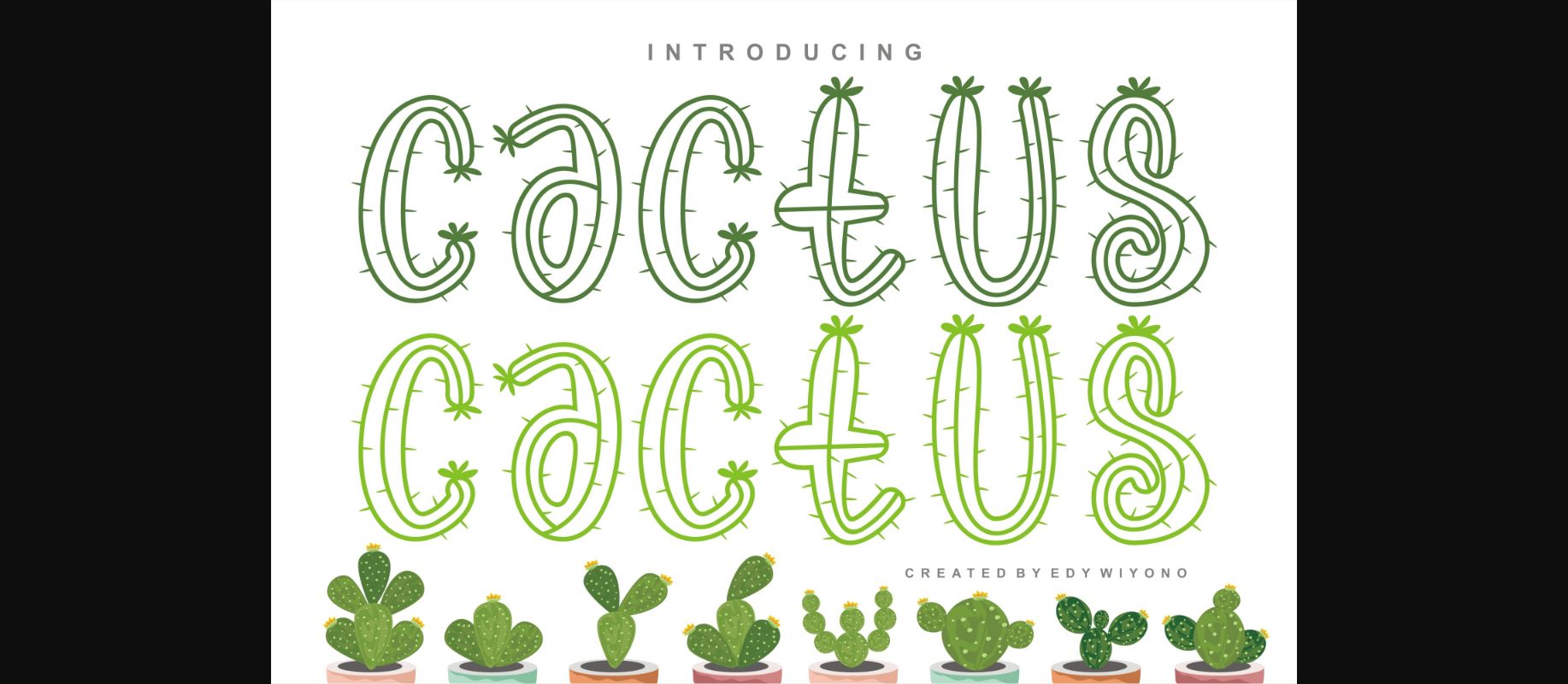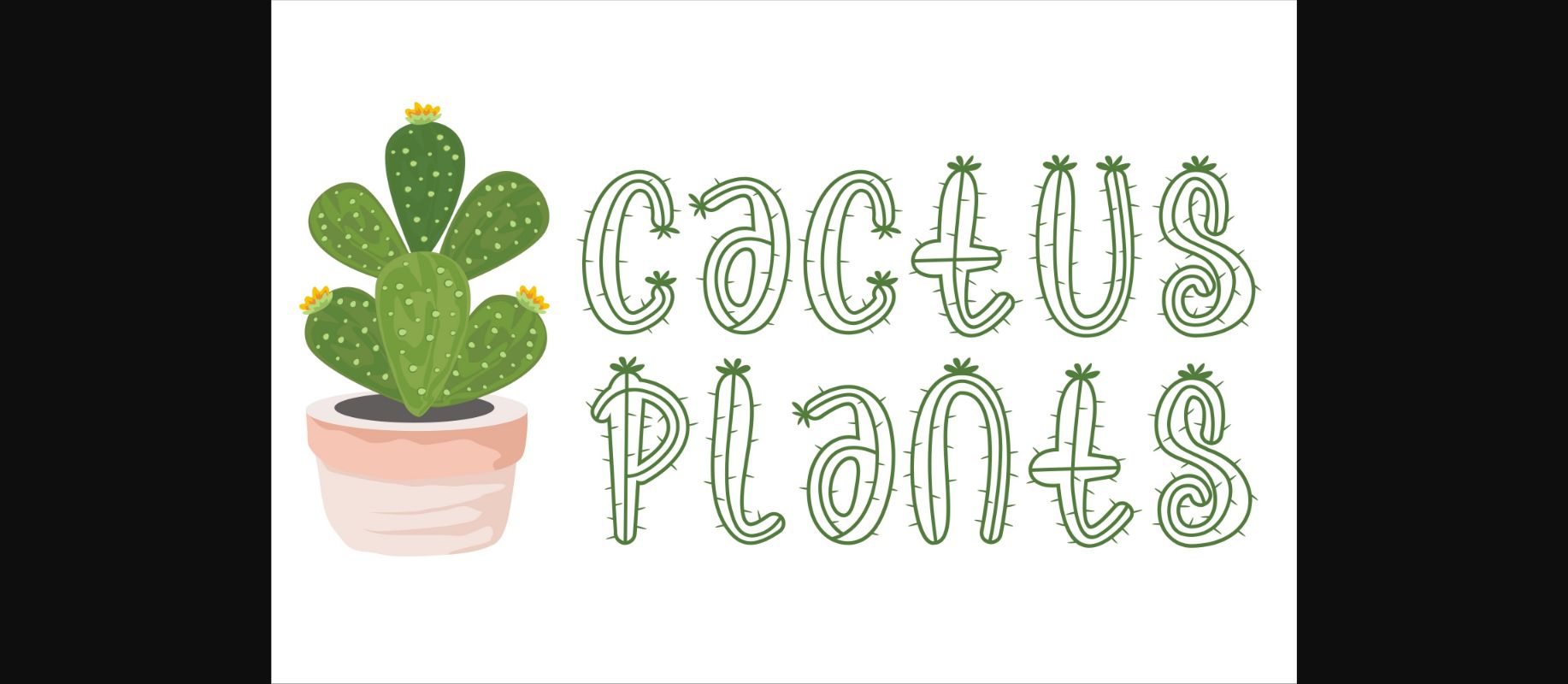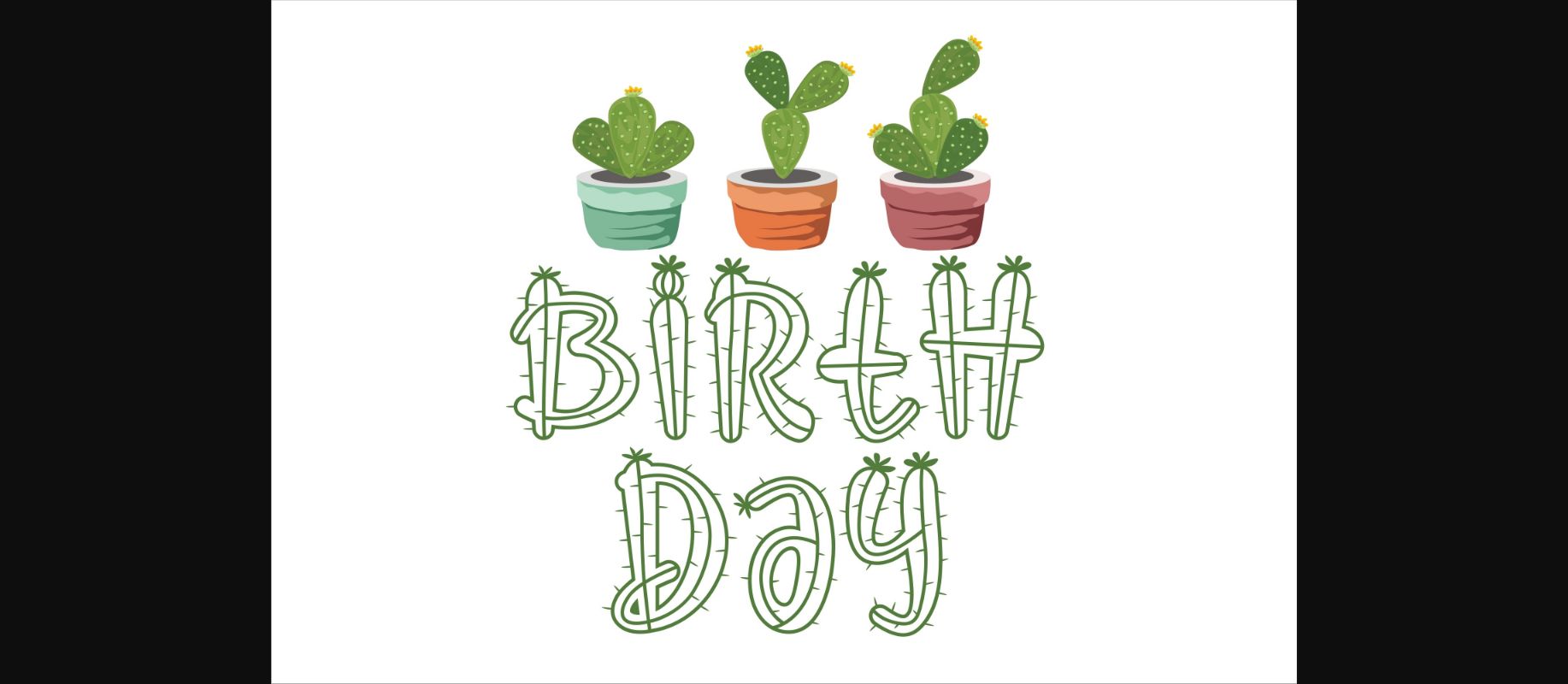
About Cactus Plants Font
Cactus Font is a decorative typeface with cactus plant theme. This font is very suitable for cartoon themed designs, illustrations, designs for children and very suitable for environmental themes.